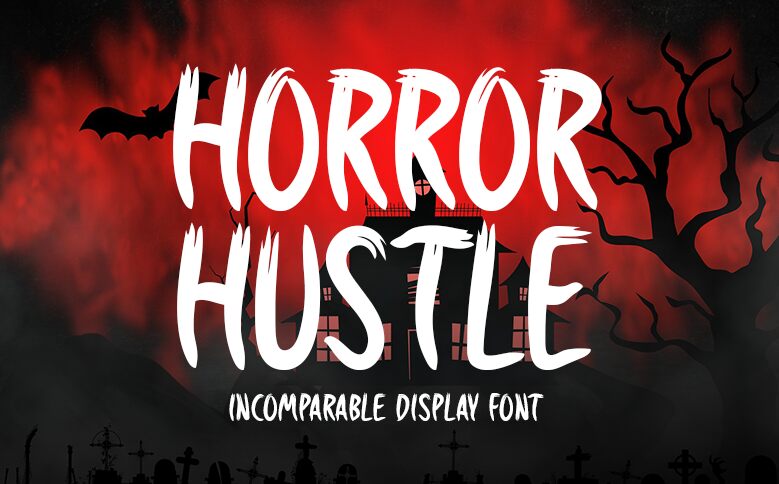
Horror Hustle, designed by Md Shohail Bhuian, is a semi-light, condensed display font with a scary and brush style. This casual font is perfect for unleashing your creativity in any Halloween-related project or crafty idea.
With its spooky vibe and condensed width, Horror Hustle adds an eerie touch to invitations for haunted house parties or horror movie posters. Its unique brush style also makes it ideal for creating chilling social media graphics or designing creepy t-shirts and merchandise.